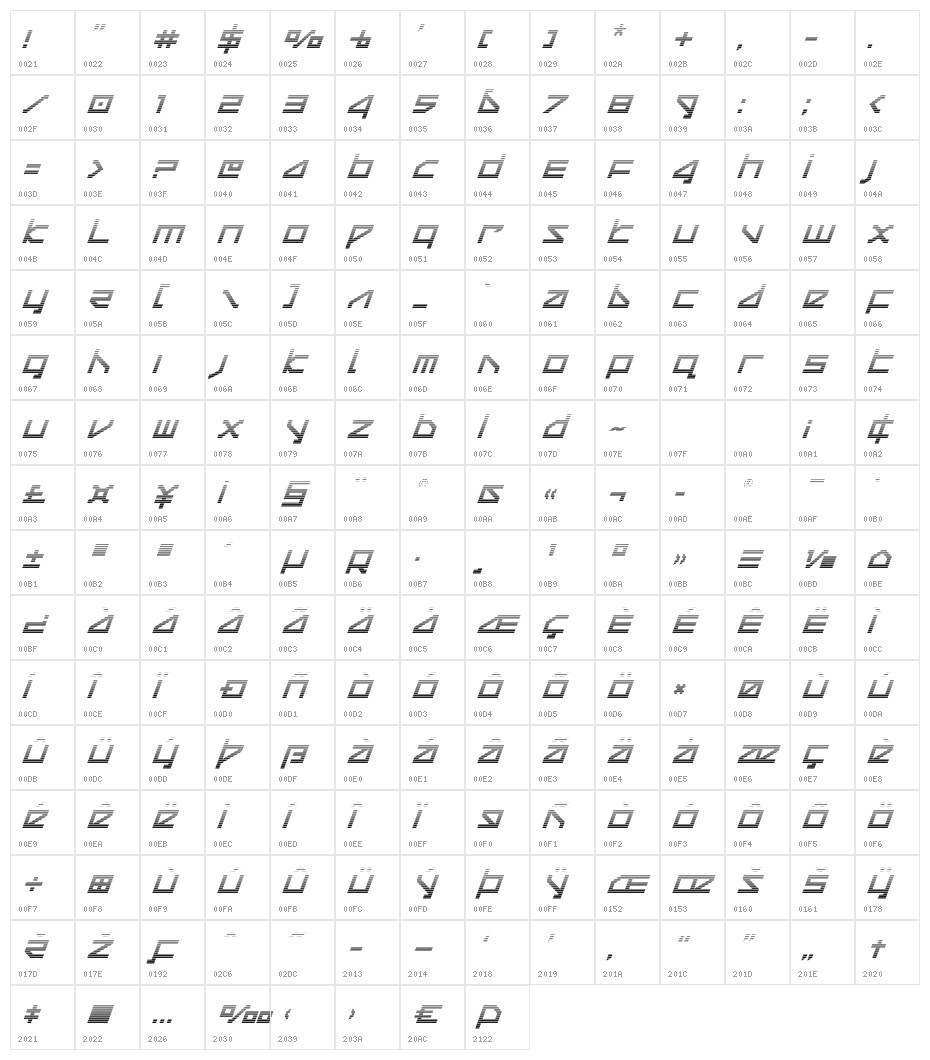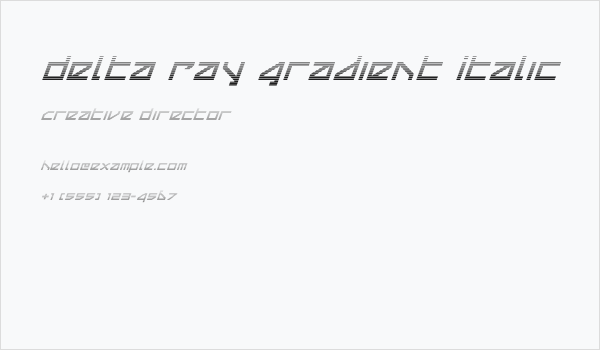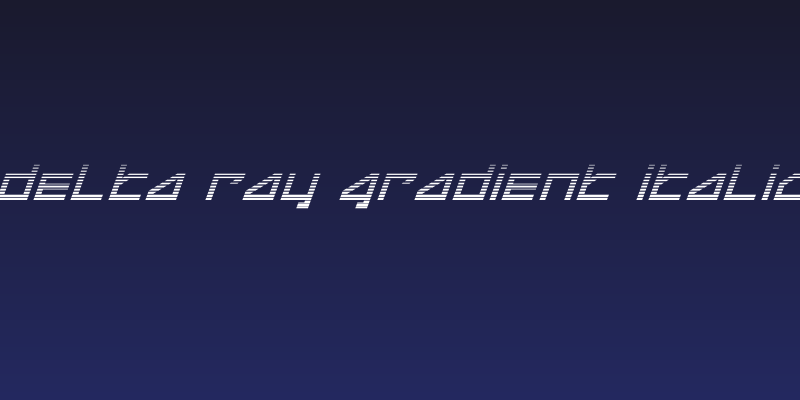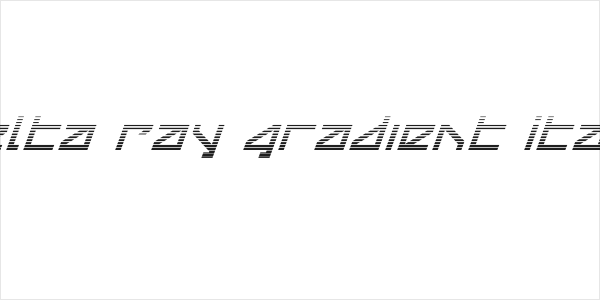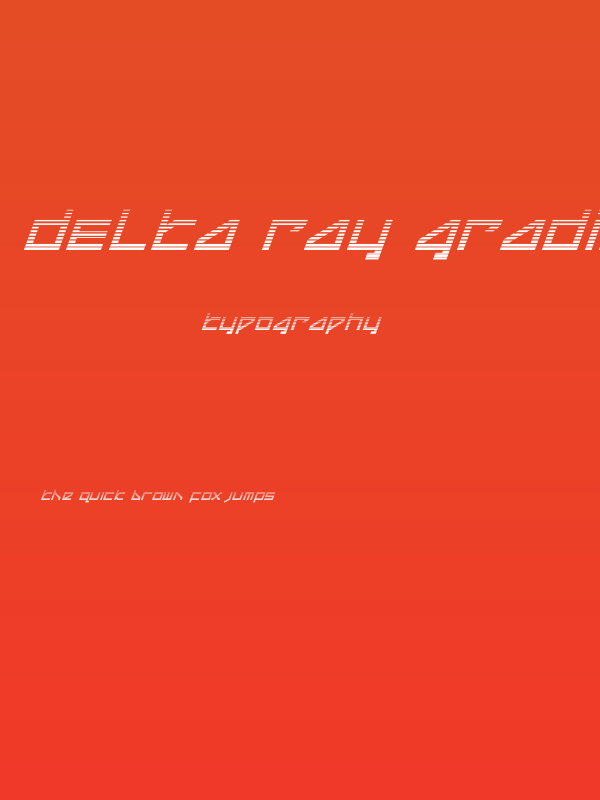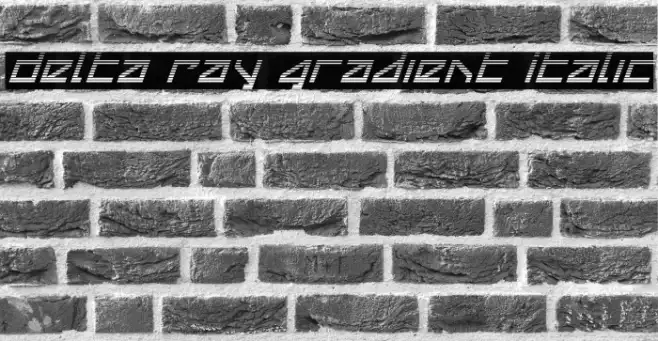
Delta Ray Gradient Italic Font
Delta Ray Gradient Italic Description
This font features a futuristic and dynamic design with a distinct italic slant. Each character is composed of a series of parallel lines, creating a striped, gradient effect that gives a sense of movement and speed. The angular and geometric shapes of the letters enhance its modern and tech-inspired aesthetic. The uppercase and lowercase letters maintain a consistent style, while the numerals and special characters are designed to match the overall theme. This font's unique appearance makes it stand out, ideal for projects that require a bold and innovative look.
| Proposed Projects | Ideal for tech branding, sci-fi themed designs, video game titles, and futuristic posters. |